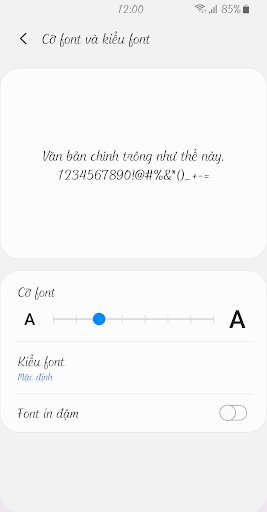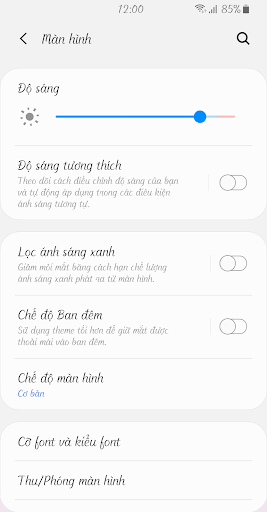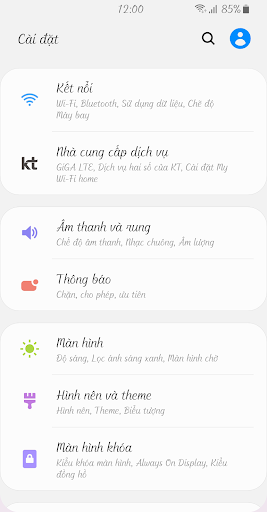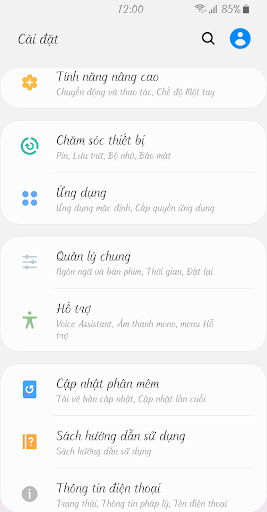
ZFstylish™ Vietnamese Flipfont
ZFstylish
This font is a professional brush script typeface.
The thickness changes severely and gives a strong impression from the sharp finish.
Elegantly connected curves and straight lines treated with diagonal lines give a refined and comfortable sense of stability.